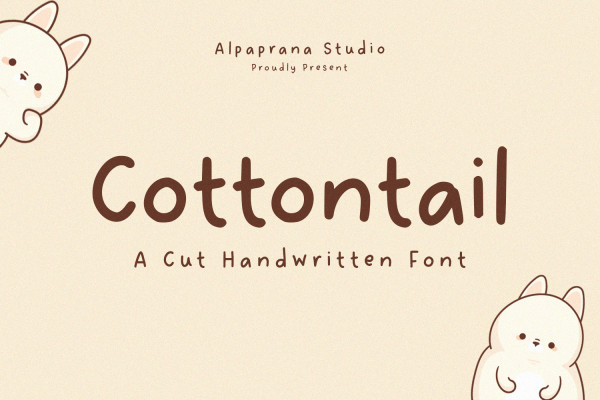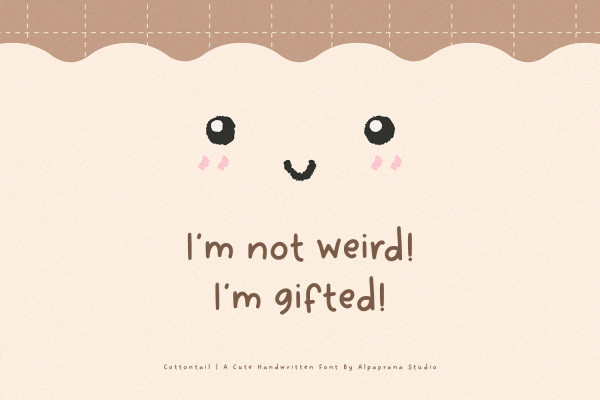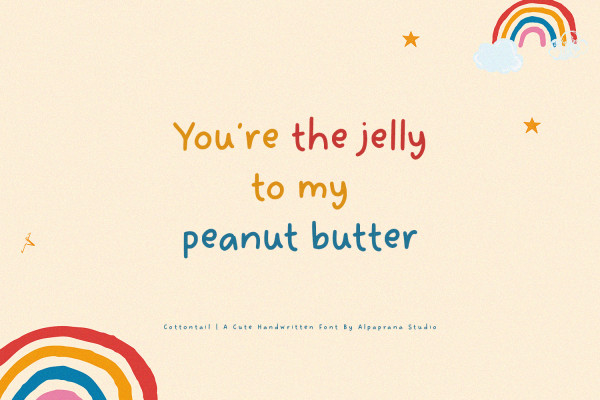
Cottontail Font
Cottontail Font is a handwritten display font with natural and modern feels. It will be perfectly used for Branding, Logo Design, Lettering, Logotype, Clothing, Poster, magazine, packaging, posters, shopping bags, t-shirts, book covers, photography, special events and other design project.